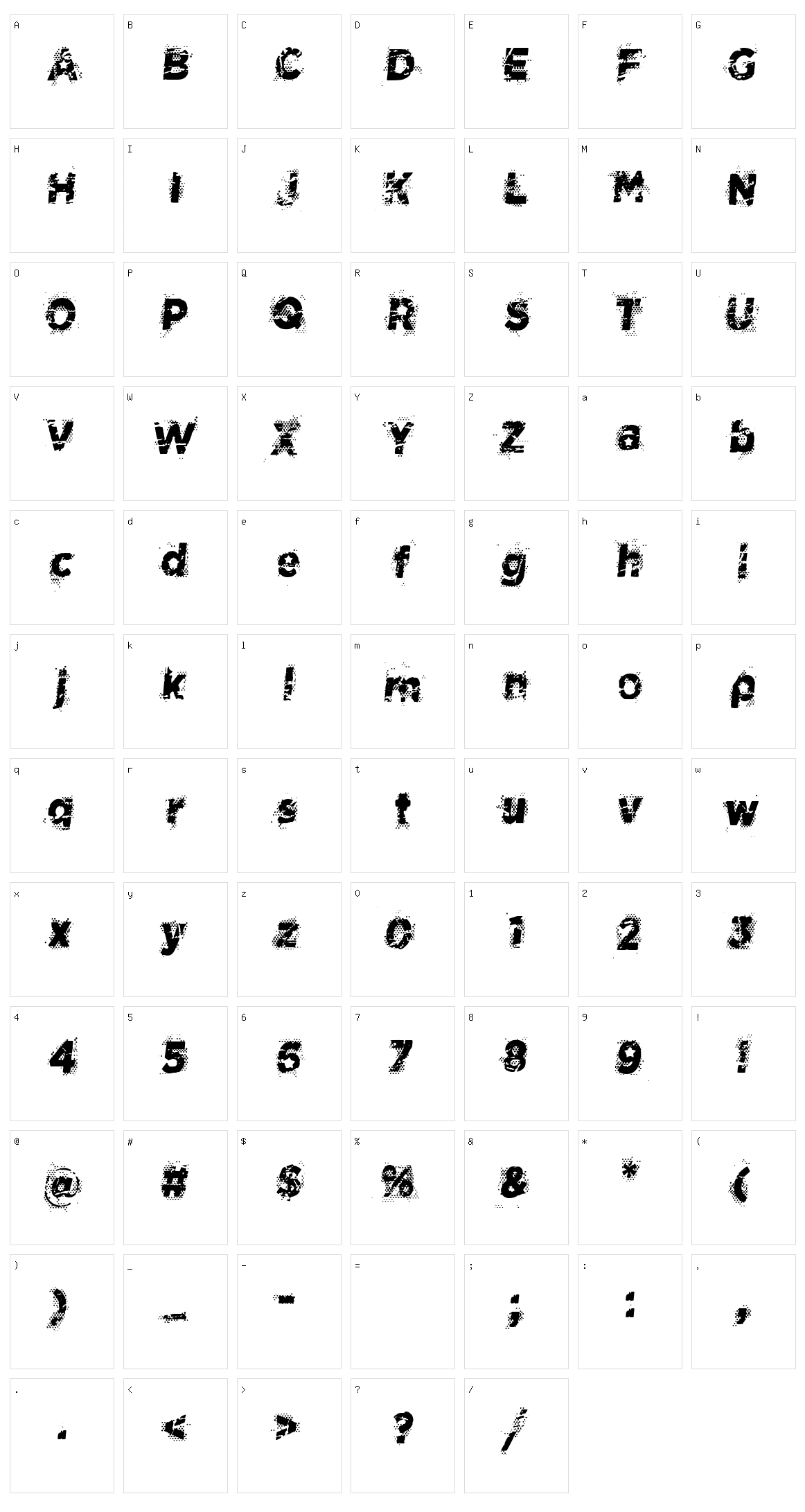
The free font CF Space Cowboy is carefully designed by Cloutierfontes, showcasing a thoughtful balance of creativity and usability and falls under the Distorted font style. When you download the ZIP file, it contains only 149.03 KB of font files, making it lightweight and quick to download. Please review the license details below to understand permitted usage and distribution rights. If license information is not available, we recommend using this font for personal projects only or contacting the author directly for commercial usage permissions.